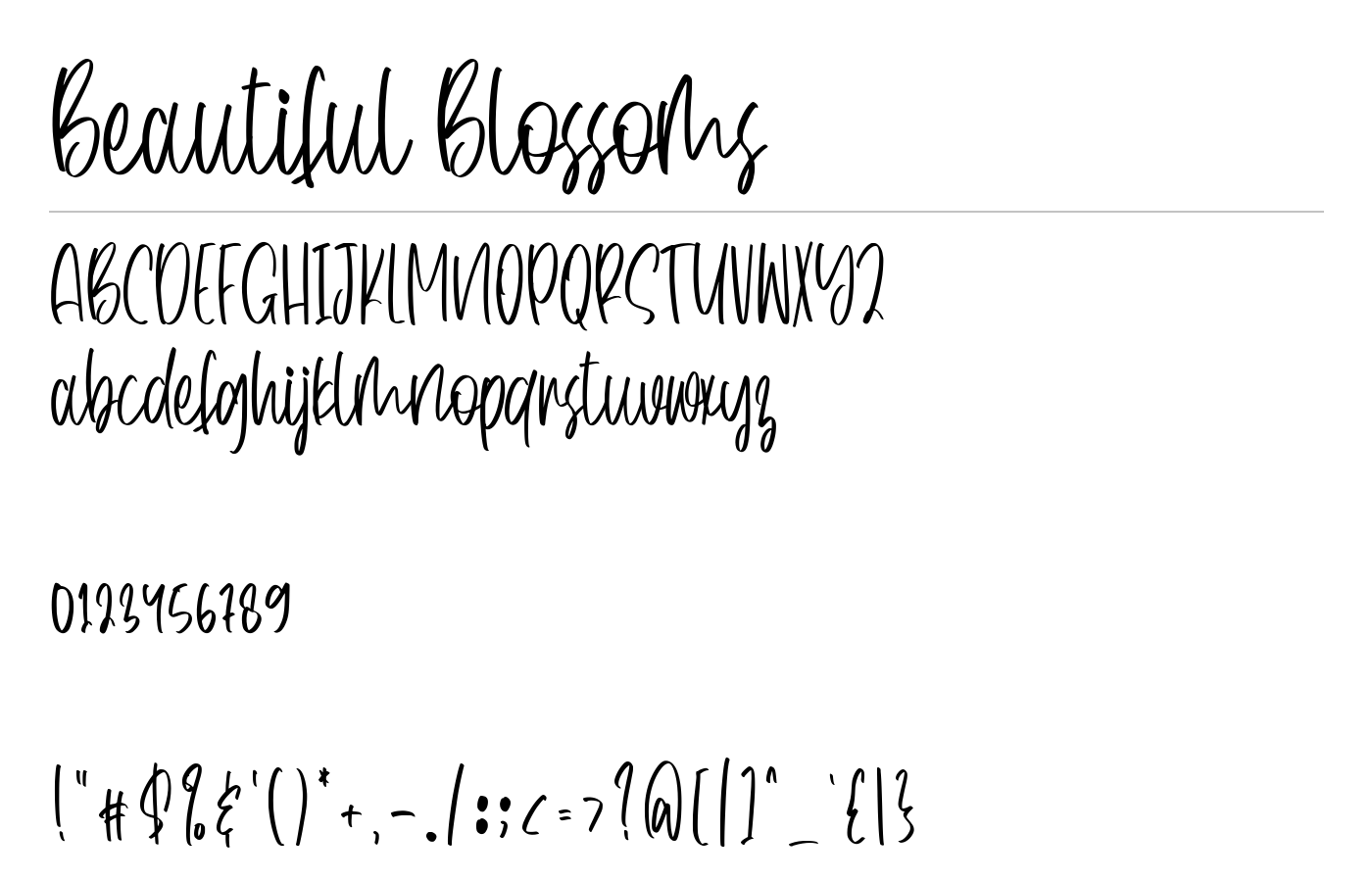
Beautiful Blossoms is a lively and playful handwritten script font with a tall, narrow structure and smooth, flowing lines that give it a warm, personal touch. Its casual, elegant style makes it ideal for creative projects, invitations, branding, and any design that benefits from a friendly and charming vibe. This font works beautifully for headlines, logos, and packaging where a touch of handcrafted appeal is desired.
Beautiful Blossoms Font
About Beautiful Blossoms Font
| Font family | Beautiful Blossoms Font |
| Designer | hatftype |